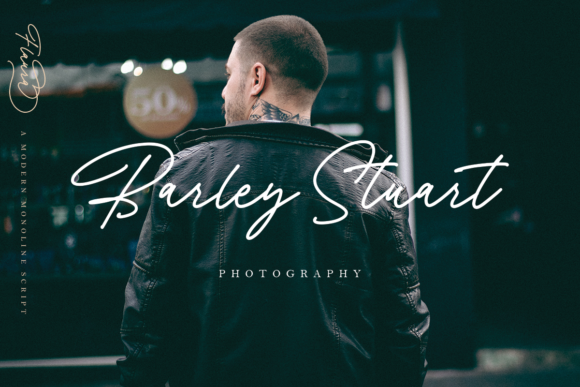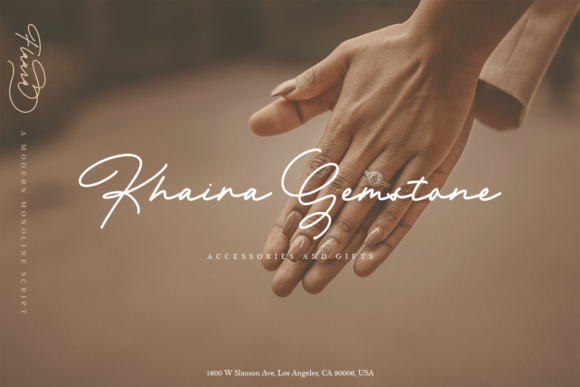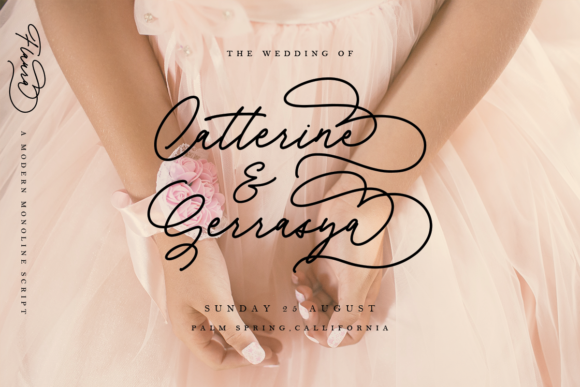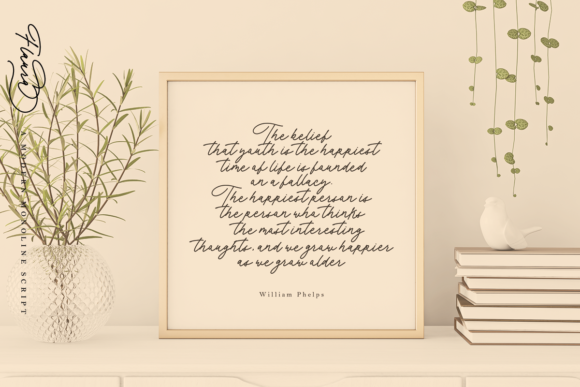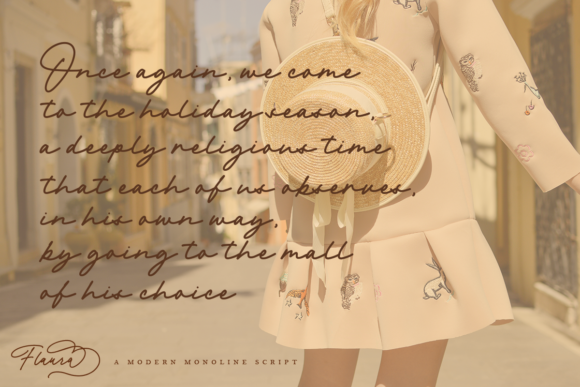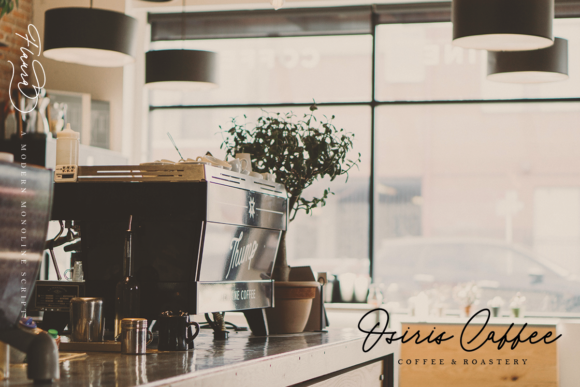
Flaura Font: A Feminine Script Font for Personalized Designs
Are you looking for a font that adds a touch of elegance and personality to your design projects? Look no further than Flaura Font, a beautiful script font featuring a feminine handwritten style. With its unique and charming appearance, Flaura Font is perfect for designers and crafters who want to create personalized and eye-catching designs.
What is Flaura Font?
Flaura Font is a script font that is designed to mimic the look of handwritten text. Its feminine and elegant style makes it perfect for a wide range of design projects, from wedding invitations and greeting cards to branding and packaging. The font features beautiful swashes and flourishes that add a touch of sophistication and glamour to any design.
Key Features of Flaura Font
- Feminine Handwritten Style: Flaura Font features a beautiful, feminine handwritten style that is perfect for designs that require a personal touch.
- Script Font: The font is a script font, which means it features connected letters that create a flowing and elegant look.
- Swashes and Flourishes: Flaura Font includes beautiful swashes and flourishes that add a touch of sophistication and glamour to any design.
- Personalized Appearance: The font is perfect for designs that require a personalized appearance, such as wedding invitations, greeting cards, and branding.
Uses of Flaura Font
Flaura Font is a versatile font that can be used for a wide range of design projects, including:
- Wedding Invitations: The font’s elegant and feminine style makes it perfect for wedding invitations, save-the-date cards, and other wedding-related designs.
- Greeting Cards: Flaura Font is perfect for creating beautiful and personalized greeting cards for special occasions, such as birthdays, anniversaries, and holidays.
- Branding and Packaging: The font’s unique and charming appearance makes it perfect for branding and packaging designs that require a personal touch.
- Stationery and Journaling: Flaura Font is perfect for creating beautiful and personalized stationery and journal pages.
Why Choose Flaura Font?
There are many reasons why designers and crafters choose Flaura Font for their design projects. Here are a few:
- Unique and Charming Appearance: Flaura Font has a unique and charming appearance that sets it apart from other fonts.
- Elegant and Feminine Style: The font’s elegant and feminine style makes it perfect for designs that require a personal touch.
- Easy to Read: Despite its elegant and cursive style, Flaura Font is easy to read and understand.
- Versatile: The font is versatile and can be used for a wide range of design projects.
Tips for Using Flaura Font
Here are a few tips for using Flaura Font in your design projects:
- Use it for Headings and Titles: Flaura Font is perfect for headings and titles, where its elegant and feminine style can really shine.
- Pair it with Other Fonts: The font can be paired with other fonts to create a unique and interesting look.
- Experiment with Colors and Textures: Flaura Font looks great in a variety of colors and textures, so don’t be afraid to experiment and find the perfect combination for your design.
Flaura Font is a beautiful script font featuring a feminine handwritten style. With its unique and charming appearance, it’s perfect for designers and crafters who want to create personalized and eye-catching designs. Whether you’re creating wedding invitations, greeting cards, or branding and packaging designs, Flaura Font is a great choice. So why not give it a try and see the difference it can make in your design projects?